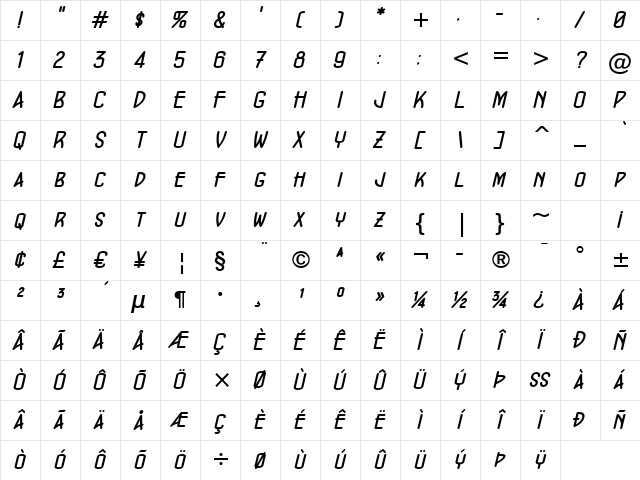
ConcursoModerne BTN BoldOblique
Design Context for ConcursoModerne BTN
ConcursoModerne BTN is a composed and adaptable typeface that performs quietly and consistently across a wide range of design contexts. The slanted form adds forward momentum and visual energy. Its bold stroke weight gives it real presence on the page.
Pro Tip: Use ConcursoModerne BTN for emphasis, pull quotes, and subheadings where its slanted energy can add rhythm to the layout.